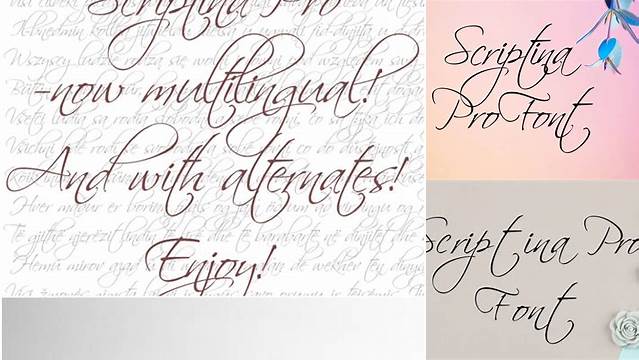
Hey everyone! 👋 Are you on the hunt for a beautiful, elegant font that can add a touch of class to your designs? Look no further than Scriptina Pro. This font family is a fantastic choice for various projects, from wedding invitations and greeting cards to branding and website headers. And the best part? You can find it for free! In this guide, we'll dive deep into everything you need to know about the Scriptina Pro font family and how to get your hands on a free download. So, grab your coffee, and let's get started!
1. What Makes Scriptina Pro So Special?
Scriptina Pro is a script font known for its flowing, graceful lines and sophisticated aesthetic. It's designed to mimic the look of elegant handwriting, which is why it's so popular for projects that need a personal, handmade touch. The font family includes various weights and styles, giving you plenty of options to customize your designs. Whether you're creating a logo, a website banner, or even a social media post, Scriptina Pro can instantly elevate your project's visual appeal. The font's versatility makes it suitable for both print and digital use, ensuring your designs look stunning across all platforms. What sets Scriptina Pro apart from other script fonts is its attention to detail. The designers have carefully crafted each letter, ensuring a seamless flow and excellent readability. This font isn't just about aesthetics; it's also about functionality. The character set includes a wide range of glyphs, covering most languages that use the Latin alphabet. This ensures that your text will look beautiful no matter what language your audience speaks. Another great thing is how easy it is to pair Scriptina Pro with other fonts. It complements both serif and sans-serif fonts, allowing you to create visually appealing and balanced designs. This flexibility is a huge advantage, especially if you're not a professional designer. You can easily mix and match Scriptina Pro with other fonts to achieve the desired look and feel for your project. So, if you're aiming for elegance, sophistication, and a touch of personal flair, Scriptina Pro is definitely a font family you should consider.
2. Scriptina Pro Font Family: Styles and Weights
Alright, let's talk about the nitty-gritty of the Scriptina Pro font family. This isn't just one font; it's a whole family, offering various styles and weights to suit your specific needs. This variety is one of the key reasons why Scriptina Pro is such a popular choice among designers. You have the flexibility to create different looks and feels for your projects, all while maintaining a consistent brand identity. The core styles usually include Scriptina Pro Regular, which is the base style, and then you have variations like Bold, Italic, and Bold Italic. Each of these styles offers a slightly different aesthetic, allowing you to fine-tune your designs. For example, Scriptina Pro Bold adds more weight and presence to your text, making it ideal for headings or important text that needs to stand out. The Italic style adds a touch of elegance and dynamism, perfect for quotes or emphasizing specific words. The Bold Italic combines the best of both worlds, providing both emphasis and flair. Besides the core styles, you might also find additional weights and variations within the Scriptina Pro family. These can include lighter or heavier weights, giving you even more control over the appearance of your text. For example, a lighter weight might be perfect for body text, ensuring that it's readable and doesn't overwhelm the design. A heavier weight can be used for headlines, catching the reader's eye. All these options combined, allows you to create a cohesive and visually engaging design. The range of styles and weights in the Scriptina Pro font family allows you to create sophisticated and visually captivating designs that will impress your audience. Take advantage of this family's versatility!
2.1 Understanding Font Weights: A Breakdown
Let's break down the concept of font weights, so you know how to best use the different styles of Scriptina Pro. Font weight refers to the thickness or boldness of a font. Different weights can dramatically change how a font appears, and they are crucial for creating visual hierarchy and emphasis in your designs. You will typically encounter weights like Light, Regular, Medium, Bold, and Black. Lighter weights are delicate and airy, ideal for body text or subtle accents. Regular weights are a balanced choice, suitable for most text applications, especially when combined with different font sizes. Medium weights provide a bit more emphasis than regular weights, making them suitable for subheadings or call-out text. Bold weights are attention-grabbing and perfect for headlines or important information you want to stand out. Black weights are the boldest, used sparingly for maximum impact, like in logos or special design elements. Using different weights of the same font family can create visual interest and guide the reader's eye. For instance, using a bold weight for the headings and a regular weight for the body text creates a clear visual hierarchy, making your content easy to read and understand. You can use font weights to create balance and visual interest in your designs. Combining a variety of weights enhances the visual appeal of your project. The use of different weights helps highlight critical details, so users can efficiently digest your content.
2.2 Scriptina Pro Regular vs. Bold: Choosing the Right Style
When deciding between Scriptina Pro Regular and Scriptina Pro Bold, you need to consider what message you want to convey. The regular style is elegant and refined, perfect for body text, invitations, and other applications where a subtle touch is desired. The regular style can blend in seamlessly, keeping the focus on the message. On the other hand, Scriptina Pro Bold is designed to grab attention, ideal for headings, titles, or anything that needs to stand out. The bold style adds a visual punch, making your text pop. When choosing between the two, consider the purpose of your text and the overall design aesthetic. In general, use Scriptina Pro Regular for less critical text, such as details and body text, to ensure it is easy to read without overpowering the design. Scriptina Pro Bold is suitable for titles, headings, and anything you want your audience to immediately notice. This ensures that your text grabs the reader's attention and emphasizes the most important elements. For a visually balanced design, you can combine both styles, using regular for the majority of your text and bold for key elements. This helps establish a clear visual hierarchy and enhances the overall design. This allows you to highlight the most important parts of your content while maintaining readability. This strategy is useful when creating a poster, website, or any other design that needs to be visually appealing and easy to navigate. The right choice between Scriptina Pro Regular and Scriptina Pro Bold depends on your specific design needs and your desired aesthetic.